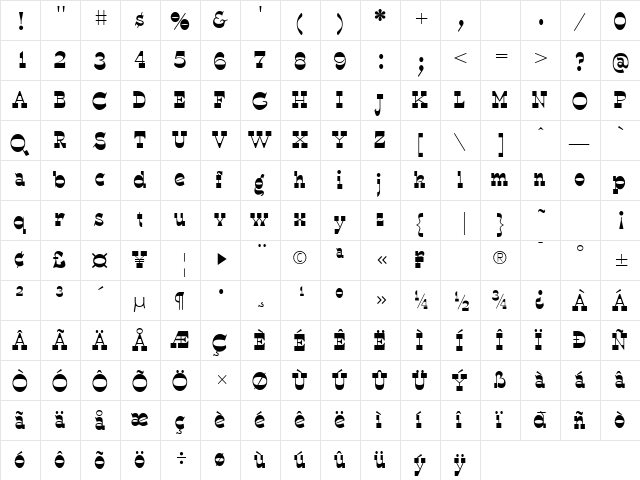
WyomingSpaghetti Bold
Design Context for WyomingSpaghetti Typeface
WyomingSpaghetti is a composed and adaptable typeface that performs quietly and consistently across a wide range of design contexts. The heavy weight commands attention and anchors typographic hierarchies.